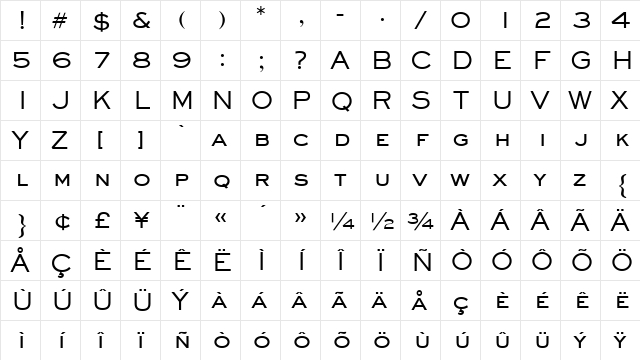
ATSackersGothic Regular
Design Context for ATSackersGothic Typeface
ATSackersGothic takes a clean, functional approach — its unadorned letterforms prioritise legibility and work reliably across screen and print environments.
Font Pairing: Works well alongside a characterful serif or display font that can carry the expressive load while ATSackersGothic handles the functional copy.
Pro Tip: Use ATSackersGothic for UI labels, navigation, and short-form body copy where clean legibility is the priority.